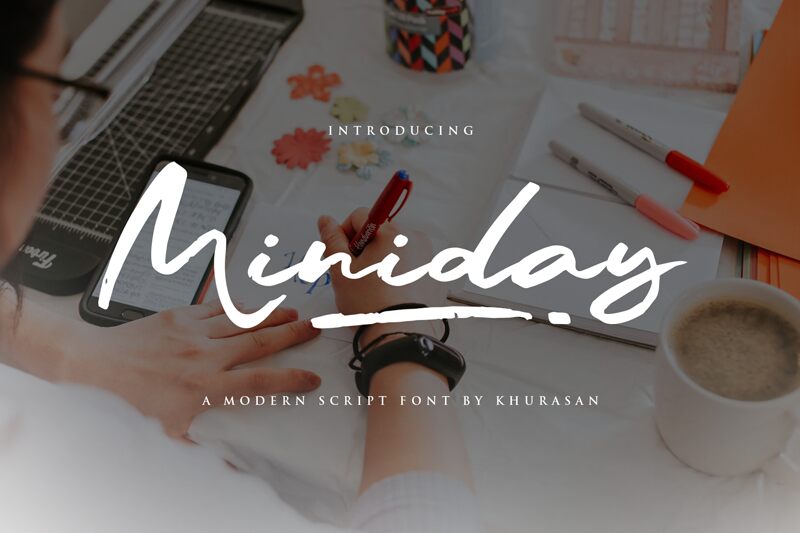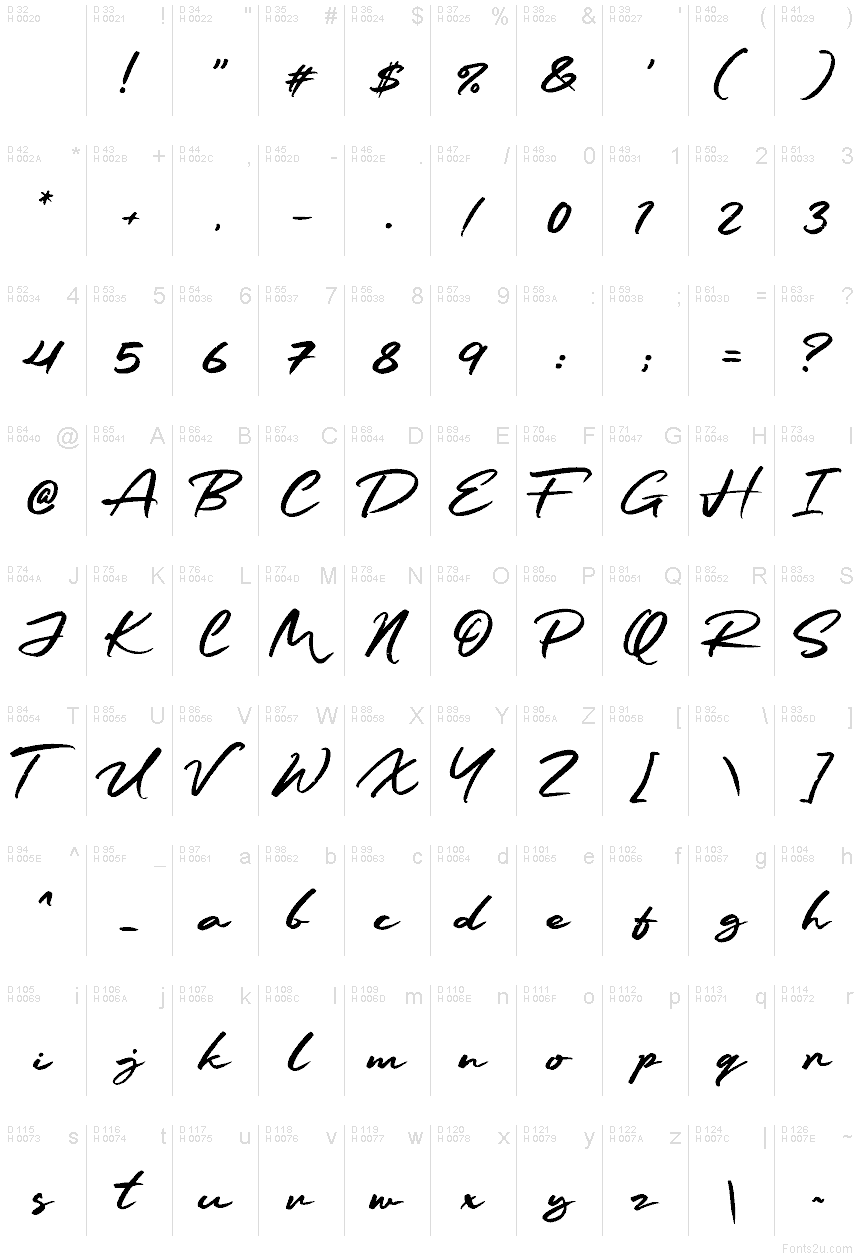
Miniday
Miniday font by Khurasan is a free handwritten script that solves a familiar headache: getting a natural, ink-on-paper vibe without losing legibility. Its slanted rhythm, varied stroke pressure, and slightly dry-brush texture feel spontaneous yet stay tidy, so headlines and signatures read in a blink. The forms connect smoothly, spacing feels breezy, and the overall flow brings warmth without the mess.
Using Miniday, you can add an easygoing human touch to branding, product labels, social posts, quote graphics, invitations, and lifestyle packaging. This free font shines on short phrases and logos where charisma matters most. For balance, pair it with a clean geometric sans and give Miniday extra tracking at larger sizes to let those brush curves breathe.